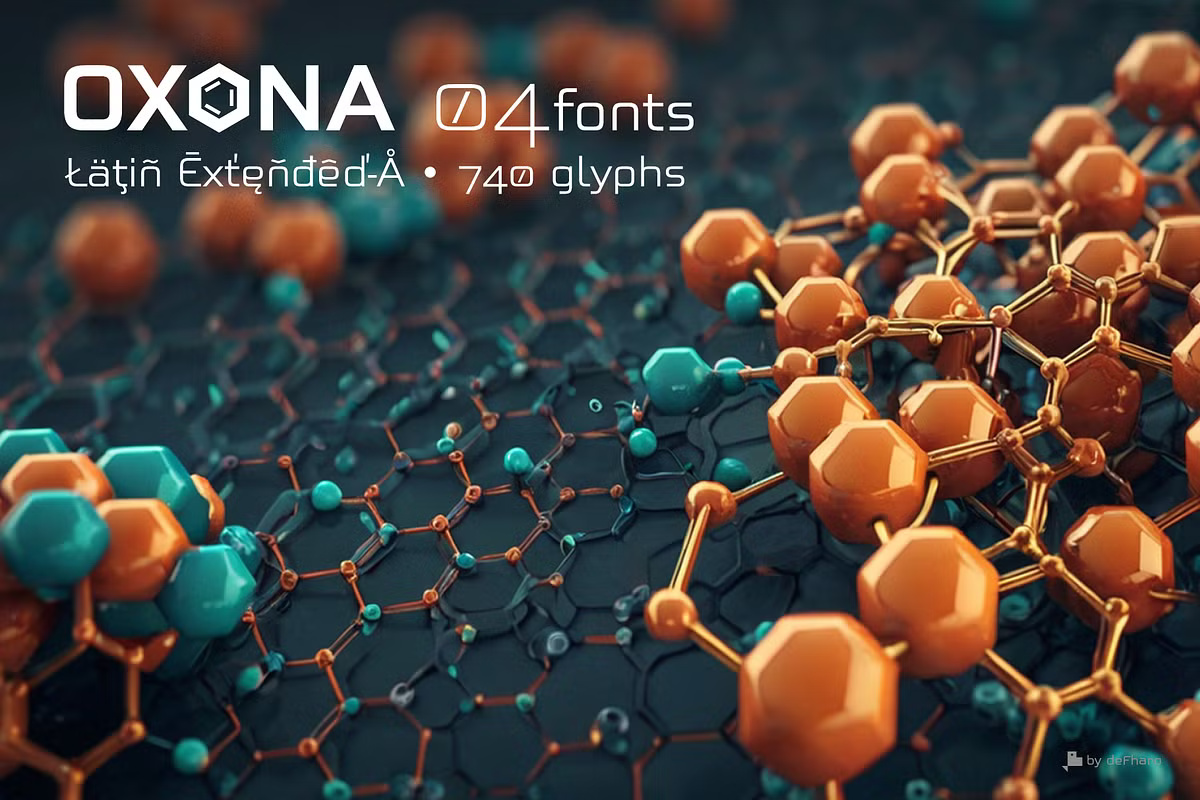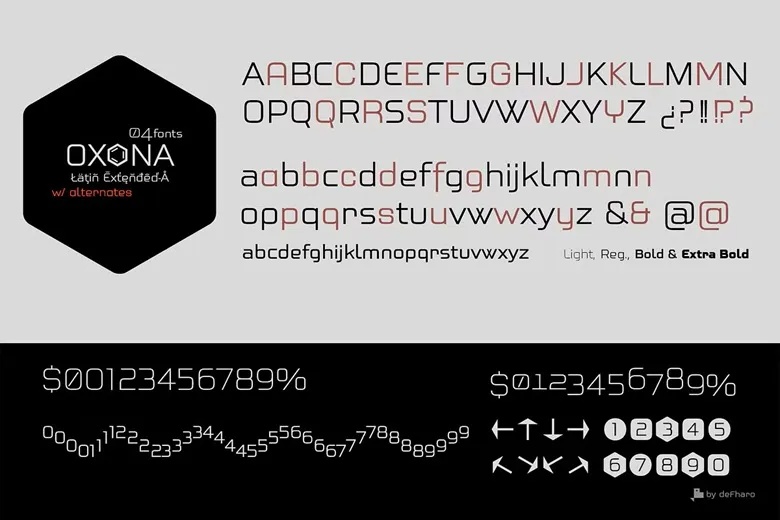
Oxona Font Family
Oxona is a contemporary sans serif font family featuring four distinct weights. Its precisely calculated proportions are designed to enhance both readability and visual appeal. Every curve, stroke, and angle has been thoughtfully crafted to achieve the perfect balance between clarity and style.
With a clean, modern aesthetic, Oxona stands out for its rational structure and meticulous optical adjustments. The result is a versatile typeface that’s as functional as it is attractive.